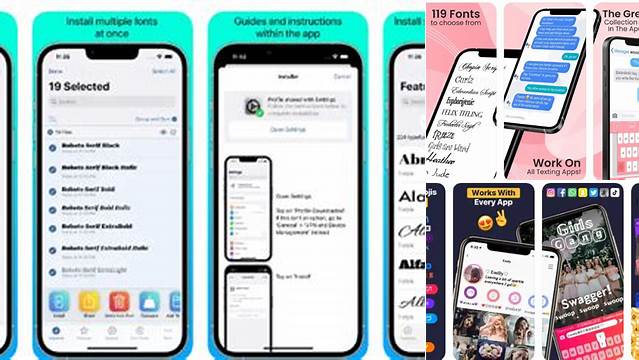
Best Font Apps For IPhone: Transform Your Text!
Hey guys! Ever feel like your iPhone's default fonts are a bit…meh? You're not alone! The good news is, there's a whole world of awesome font apps out there that can help you spice up your text game. Whether you're looking to create eye-catching social media posts, design stunning graphics, or just personalize your notes, the right font can make all the difference. So, let's dive into the best font apps for iPhone and see how you can transform your text from blah to bam!
1. Top Font Apps for iPhone in 2024
Alright, let's kick things off with a look at the top contenders in the font app world for iPhones in 2024. There are a ton of options out there, but we're going to focus on the apps that really stand out in terms of features, font selection, ease of use, and overall value. When we talk about the best font apps for iPhone, we're talking about tools that empower you to express yourself creatively and make your text truly pop. Think about it: your fonts are a part of your personal brand, and they can say a lot about you. The top font apps offer diverse styles, from elegant scripts to bold display fonts, ensuring you find the perfect match for your needs. This year, we've seen some great updates and new apps emerge, so we're super excited to share our top picks with you. We’ll consider user reviews, expert opinions, and our own hands-on testing to bring you the most comprehensive list possible. Stay tuned as we explore the world of typography on your iPhone!
2. Free Font Apps for iPhone: The Best Options
Okay, let's talk free font apps! We all love a good deal, right? The best part is, you don't have to spend a fortune to get access to some fantastic fonts on your iPhone. There are plenty of amazing free options that offer a wide variety of styles, from classic serif fonts to modern sans-serifs and playful scripts. But, of course, the word free always comes with a question, doesn’t it? Like, “what’s the catch?” The catch, if there is one, is usually that the free versions might have fewer fonts or features compared to their paid counterparts. However, many free apps still provide a solid selection to get you started. We’re talking about apps that let you use custom fonts in your social media posts, stories, and even documents. When you're looking for the best font apps for iPhone that are free, it's important to consider things like the number of fonts included, the quality of the fonts, and whether the app has any annoying limitations like watermarks or ads. Let's explore some of the top free font apps that deliver big value without costing you a dime. This way, you can express yourself and look good without breaking the bank!
3. Paid Font Apps for iPhone: Are They Worth It?
Now, let's flip the coin and talk about paid font apps for iPhone. Are they really worth the investment? Well, that depends on your needs and how seriously you take your font game. Paid font apps often offer a huge library of fonts, exclusive designs, and advanced features that you simply won't find in free apps. Think about it: if you’re a designer, a content creator, or someone who relies on visual aesthetics for your work, having access to a premium font library can be a game-changer. It can help you create unique and professional-looking designs that stand out from the crowd. When considering paid font apps, it's crucial to weigh the cost against the benefits. Some apps offer a one-time purchase, while others have subscription models. We'll dig into what you get for your money, including the number of fonts, the quality and variety of the designs, and any additional features like font pairing suggestions or integration with other apps. Let’s explore whether investing in the best font apps for iPhone that are paid is the right move for you. You need to consider it before making a splash out purchase, guys.
4. Font Apps for Instagram on iPhone
Instagram, Instagram… the land of visually stunning content! If you're an Instagram enthusiast, you know how important it is to make your posts and stories stand out. That’s where font apps for Instagram come in! Using custom fonts can add a unique flair to your captions, bios, and stories, helping you grab attention and express your personal style. The best font apps for iPhone designed for Instagram often offer a wide range of stylish and trendy fonts that you won't find in the standard Instagram font options. We're talking about fonts that are perfect for everything from quotes and announcements to product promotions and behind-the-scenes glimpses. When choosing a font app for Instagram, think about ease of use, font variety, and how well the app integrates with Instagram’s interface. Some apps allow you to type directly within the app and then copy and paste your text into Instagram, while others might offer direct integration. Let's explore the top font apps that will help you level up your Instagram game and make your content shine. Get ready to make your feed the envy of all your followers!
5. Font Apps for Stories on iPhone
Instagram Stories are huge, right? They're a fantastic way to share quick updates, engage with your audience, and show off your personality. But let’s face it, the default font options in Instagram Stories can get a little…well, boring. That's where font apps for Stories come to the rescue! These apps allow you to add eye-catching and unique fonts to your Stories, making them more engaging and visually appealing. The best font apps for iPhone for Stories offer a wide range of styles, from playful handwritten fonts to bold and modern designs. When selecting an app, consider the variety of fonts, how easy it is to use, and whether it offers other features like text animations or background options. You want an app that lets you quickly and easily create stunning Stories without a ton of fuss. Let's explore the top apps that will help you transform your Instagram Stories from meh to marvelous. It's time to make your Stories stand out and captivate your audience! So get your creative juices flowing, guys!
6. Font Apps for TikTok on iPhone
Tiktok… where creativity takes center stage! If you're a TikTok creator, you know that every detail matters, including your fonts. Using custom fonts in your TikTok videos can help you express your personality, highlight key messages, and make your content more engaging. Font apps for TikTok allow you to add unique and stylish text overlays to your videos, helping you stand out in the crowded TikTok landscape. The best font apps for iPhone for TikTok offer a range of trendy and eye-catching fonts that perfectly complement the platform’s dynamic and visual nature. You can use different fonts for captions, text overlays, and even watermarks to create a cohesive and professional look for your videos. When choosing a font app for TikTok, consider how easy it is to add text to your videos, the variety of fonts available, and whether the app offers other editing features. Let's explore the top apps that will help you level up your TikTok game and create content that grabs attention. Ready to make your mark on TikTok? Let’s do this!
7. Font Keyboard Apps for iPhone
Tired of the same old system font on your iPhone keyboard? Font keyboard apps are here to spice things up! These apps allow you to type in a variety of stylish fonts directly from your keyboard, making it super easy to add flair to your texts, emails, social media posts, and more. The best font apps for iPhone that function as keyboards integrate seamlessly with your system, so you can use them in virtually any app. We're talking about typing in elegant scripts, bold display fonts, and playful handwritten styles, all without having to copy and paste from another app. When choosing a font keyboard app, consider factors like the number of fonts included, the ease of switching between fonts, and whether the keyboard is stable and responsive. Nobody wants a laggy keyboard! We'll dive into the top apps that offer a smooth and stylish typing experience, so you can express yourself in every message. Get ready to say goodbye to boring text and hello to a world of font-tastic possibilities!
8. Font Generator Apps for iPhone
Need to create some unique and eye-catching text? Font generator apps are your new best friends! These apps allow you to generate stylized text with various effects, such as outlines, shadows, gradients, and 3D effects. The best font apps for iPhone that are font generators go beyond just offering different font styles; they provide tools to customize your text in creative ways. Think about it: you can create logos, banners, social media graphics, and more, all directly from your iPhone. When choosing a font generator app, consider the range of effects and customization options available, the ease of use, and whether the app allows you to save and share your creations. Some apps also offer templates and design tools to help you get started. We'll explore the top apps that will help you unleash your inner designer and create stunning text graphics in minutes. Let’s get generating, guys!
9. Font Editor Apps for iPhone
Want to take your font game to the next level? Font editor apps are the tools you need! These apps allow you to customize existing fonts or even create your own from scratch. If you're a true typography enthusiast or a designer who needs precise control over your fonts, a font editor app is a must-have. The best font apps for iPhone that are font editors offer a range of advanced features, such as adjusting letter spacing, kerning, and glyph shapes. You can fine-tune existing fonts to perfectly match your project's needs or let your creativity flow and design entirely new typefaces. When choosing a font editor app, consider the level of control it offers, the learning curve, and whether it supports importing and exporting fonts in various formats. We'll dive into the top apps that will help you become a font master. Get ready to delve into the intricacies of typography and unleash your font design potential!
10. Apps with the Widest Font Selection for iPhone
Variety is the spice of life, and that's especially true when it comes to fonts! If you're looking for an app with a massive font library, you're in the right place. Apps with the widest font selection for iPhone offer thousands of fonts, from classic styles to trendy designs, ensuring you'll always find the perfect font for any project. The best font apps for iPhone in this category are like a font buffet, offering everything from elegant scripts and bold display fonts to playful handwritten styles and vintage designs. We're talking about libraries that are constantly updated with new fonts, so you'll always have fresh options to choose from. When considering apps with a wide font selection, think about the organization and search features, the quality of the fonts, and whether the app offers previews or samples. Let's explore the top apps that will give you access to a vast world of typography. Get ready to dive into a font wonderland!
11. Apps with the Easiest Font Installation on iPhone
Installing fonts on your iPhone shouldn't be a headache, right? That's why apps with the easiest font installation are a godsend! These apps streamline the process of adding custom fonts to your device, making it quick and painless. The best font apps for iPhone that prioritize easy installation often offer a simple, step-by-step guide and integrate seamlessly with iOS. No more struggling with complicated procedures or confusing settings! We're talking about apps that let you preview fonts before installing them, manage your installed fonts easily, and even uninstall fonts if you need to. When choosing an app for easy font installation, consider the user interface, the clarity of the instructions, and whether the app supports various font formats. Let's explore the top apps that will make font installation a breeze. Get ready to say goodbye to font installation frustration!
12. Apps for Custom Fonts on iPhone
Want to use your own unique handwriting or a custom font you designed? Apps for custom fonts on iPhone make it possible! These apps allow you to import your own fonts or create new ones using your handwriting or other designs. The best font apps for iPhone in this category offer tools to create professional-looking fonts, with features like glyph editing, kerning adjustments, and font exporting. Think about it: you could create a font based on your signature, a font inspired by your favorite artist, or a font that perfectly matches your brand's aesthetic. When choosing an app for custom fonts, consider the level of control it offers, the ease of use, and whether it supports different font formats. We'll explore the top apps that will help you bring your font ideas to life. Get ready to unleash your creativity and design your very own fonts!
13. Font Pairing Apps for iPhone
Choosing the right font pairings can be tricky, but font pairing apps are here to help! These apps suggest fonts that work well together, making it easy to create visually harmonious designs. The best font apps for iPhone that focus on font pairing often use typography principles and algorithms to generate suggestions, so you can be confident that your font combinations will look great. Think about it: a well-paired font combination can elevate your design, make your text more readable, and create a cohesive visual identity. When choosing a font pairing app, consider the accuracy of the suggestions, the variety of font styles included, and whether the app offers explanations for why certain fonts pair well together. We'll explore the top apps that will help you master the art of font pairing. Get ready to create stunning typography combinations!
14. Font Management Apps for iPhone
If you're a font enthusiast, you might find yourself with a huge collection of fonts on your iPhone. That's where font management apps come in! These apps help you organize, preview, and manage your fonts, making it easy to find the perfect font for any project. The best font apps for iPhone in this category offer features like font categorization, tagging, and search, so you can quickly locate the fonts you need. Think about it: a well-organized font library can save you time and frustration, especially when you're working on tight deadlines. When choosing a font management app, consider the organization features, the preview options, and whether the app integrates with other design tools. We'll explore the top apps that will help you keep your font library in tip-top shape. Get ready to take control of your fonts!
15. Font Preview Apps for iPhone
Want to see how a font will look before you use it? Font preview apps are the answer! These apps allow you to preview fonts on your iPhone, so you can make sure they're the perfect fit for your project. The best font apps for iPhone that offer font previews often let you type in custom text and see how it looks in different fonts, sizes, and styles. Think about it: previewing fonts can save you time and prevent design disasters, ensuring that your text always looks its best. When choosing a font preview app, consider the clarity of the previews, the customization options, and whether the app supports different font formats. We'll explore the top apps that will help you visualize your typography. Get ready to preview your way to perfect fonts!
16. Apps for Designing Text Logos on iPhone
Need a logo but don't want to hire a designer? Apps for designing text logos on iPhone can help! These apps offer tools and templates to create professional-looking logos using text and typography. The best font apps for iPhone in this category often include a library of fonts, design elements, and customization options, so you can create a logo that perfectly represents your brand. Think about it: a well-designed logo can make a huge difference in your brand's identity and recognition. When choosing an app for designing text logos, consider the design options, the ease of use, and whether the app allows you to export your logo in high resolution. We'll explore the top apps that will help you create a logo you'll be proud of. Get ready to design a logo that wows!
17. Apps for Adding Text to Photos on iPhone
Adding text to photos is a great way to create engaging social media posts, memes, and more. Apps for adding text to photos on iPhone make it easy to overlay text on your images, with a variety of fonts and customization options. The best font apps for iPhone in this category often offer features like text resizing, rotating, and color adjustment, so you can create the perfect text overlay. Think about it: a well-placed text overlay can add context, humor, or emotion to your photos, making them more impactful. When choosing an app for adding text to photos, consider the font selection, the customization options, and whether the app offers other editing features like filters and effects. We'll explore the top apps that will help you turn your photos into visual masterpieces. Get ready to add some text-tastic flair to your images!
18. Apps for Creating Text Watermarks on iPhone
Protect your images and add a personal touch with apps for creating text watermarks on iPhone. These apps allow you to add a text watermark to your photos, helping you prevent unauthorized use and promote your brand. The best font apps for iPhone in this category often offer customizable watermark templates, font options, and transparency settings, so you can create a watermark that's both effective and visually appealing. Think about it: a well-designed watermark can protect your work and increase brand awareness. When choosing an app for creating text watermarks, consider the customization options, the ease of use, and whether the app supports batch processing. We'll explore the top apps that will help you safeguard your images. Get ready to watermark like a pro!
19. Apps for Animated Text on iPhone
Want to make your text move? Apps for animated text on iPhone can help you create eye-catching text animations for your videos, social media posts, and more. The best font apps for iPhone in this category offer a range of animation styles, font options, and customization settings, so you can create text animations that truly stand out. Think about it: animated text can grab attention, highlight key messages, and add a dynamic touch to your content. When choosing an app for animated text, consider the animation styles, the font selection, and whether the app offers other editing features. We'll explore the top apps that will help you bring your text to life. Get ready to animate your words!
20. Apps for Calligraphy Fonts on iPhone
Add a touch of elegance and sophistication to your text with apps for calligraphy fonts on iPhone. These apps offer a variety of beautiful calligraphy fonts that are perfect for invitations, cards, and other special occasions. The best font apps for iPhone in this category often include different calligraphy styles, from classic scripts to modern lettering, so you can find the perfect font for your project. Think about it: a well-chosen calligraphy font can add a touch of artistry to your text. When choosing an app for calligraphy fonts, consider the font selection, the quality of the fonts, and whether the app offers customization options. We'll explore the top apps that will help you master the art of calligraphy. Get ready to write in style!
21. Apps for Handwriting Fonts on iPhone
Want to give your text a personal touch? Apps for handwriting fonts on iPhone can help! These apps offer a variety of fonts that mimic handwriting, adding a casual and authentic feel to your messages, notes, and designs. The best font apps for iPhone in this category often include different handwriting styles, from neat cursive to messy scrawls, so you can find the perfect font to match your personality. Think about it: a handwriting font can make your text feel more personal and relatable. When choosing an app for handwriting fonts, consider the font selection, the authenticity of the fonts, and whether the app offers customization options. We'll explore the top apps that will help you add a human touch to your text. Get ready to write like you mean it!
22. Apps for Vintage Fonts on iPhone
Looking for a retro vibe? Apps for vintage fonts on iPhone can transport your text back in time! These apps offer a variety of fonts inspired by vintage typography, from classic serifs to Art Deco styles. The best font apps for iPhone in this category often include fonts that evoke different eras, so you can find the perfect font for your vintage-themed projects. Think about it: a well-chosen vintage font can add a touch of nostalgia and character to your designs. When choosing an app for vintage fonts, consider the font selection, the authenticity of the fonts, and whether the app offers customization options. We'll explore the top apps that will help you bring a vintage flair to your text. Get ready to rewind your typography!
23. Apps for Modern Fonts on iPhone
Keep your text looking fresh and stylish with apps for modern fonts on iPhone. These apps offer a variety of contemporary font styles, from clean sans-serifs to bold display fonts, that are perfect for today's designs. The best font apps for iPhone in this category often include fonts that are optimized for digital use, so your text will look crisp and clear on any screen. Think about it: a well-chosen modern font can give your text a sleek and professional look. When choosing an app for modern fonts, consider the font selection, the readability of the fonts, and whether the app offers customization options. We'll explore the top apps that will help you stay on-trend with your typography. Get ready to modernize your text!
24. Apps for Bold Fonts on iPhone
Need to make a statement? Apps for bold fonts on iPhone are your go-to! These apps offer a variety of fonts with thick strokes and strong presence, perfect for headlines, titles, and other text that needs to stand out. The best font apps for iPhone in this category often include different bold styles, from condensed to expanded, so you can find the perfect font for your message. Think about it: a well-chosen bold font can grab attention and convey confidence. When choosing an app for bold fonts, consider the font selection, the readability of the fonts, and whether the app offers customization options. We'll explore the top apps that will help you make a bold statement with your text. Get ready to shout it out with style!
25. Apps for Script Fonts on iPhone
Add a touch of elegance and personality to your text with apps for script fonts on iPhone. These apps offer a variety of flowing, handwritten-style fonts that are perfect for invitations, cards, and other special projects. The best font apps for iPhone in this category often include different script styles, from formal calligraphy to casual brush lettering, so you can find the perfect font for your needs. Think about it: a well-chosen script font can add a personal and sophisticated touch to your designs. When choosing an app for script fonts, consider the font selection, the legibility of the fonts, and whether the app offers customization options. We'll explore the top apps that will help you master the art of script typography. Get ready to write with flair!
26. Apps for Display Fonts on iPhone
Make your text a work of art with apps for display fonts on iPhone. These apps offer a variety of unique and decorative fonts that are perfect for headlines, logos, and other design elements that need to make a statement. The best font apps for iPhone in this category often include fonts with bold shapes, intricate details, and eye-catching designs. Think about it: a well-chosen display font can set the tone and style of your entire project. When choosing an app for display fonts, consider the font selection, the uniqueness of the fonts, and whether the app offers customization options. We'll explore the top apps that will help you create visually stunning text. Get ready to showcase your creativity!
27. Apps for Sans-Serif Fonts on iPhone
Keep your text clean and modern with apps for sans-serif fonts on iPhone. These apps offer a variety of fonts without serifs (the little strokes at the ends of letters), which are known for their readability and versatility. The best font apps for iPhone in this category often include different sans-serif styles, from light and airy to bold and impactful, so you can find the perfect font for any project. Think about it: a well-chosen sans-serif font can give your text a professional and contemporary look. When choosing an app for sans-serif fonts, consider the font selection, the readability of the fonts, and whether the app offers customization options. We'll explore the top apps that will help you achieve a sleek and modern aesthetic. Get ready to streamline your typography!
28. Apps for Serif Fonts on iPhone
Add a touch of tradition and elegance to your text with apps for serif fonts on iPhone. These apps offer a variety of fonts with serifs (the little strokes at the ends of letters), which are often associated with classic typography and readability. The best font apps for iPhone in this category often include different serif styles, from traditional Times New Roman to more decorative options, so you can find the perfect font for your project. Think about it: a well-chosen serif font can give your text a sophisticated and timeless look. When choosing an app for serif fonts, consider the font selection, the readability of the fonts, and whether the app offers customization options. We'll explore the top apps that will help you embrace the classic appeal of serifs. Get ready to elevate your typography!
29. Apps for Rounded Fonts on iPhone
Give your text a friendly and approachable feel with apps for rounded fonts on iPhone. These apps offer a variety of fonts with rounded edges and soft shapes, which can convey a sense of warmth and playfulness. The best font apps for iPhone in this category often include different rounded styles, from subtle curves to more pronounced shapes, so you can find the perfect font for your message. Think about it: a well-chosen rounded font can make your text more inviting and engaging. When choosing an app for rounded fonts, consider the font selection, the readability of the fonts, and whether the app offers customization options. We'll explore the top apps that will help you add a touch of softness to your text. Get ready to round out your typography!
30. Future Trends in Font Apps for iPhone
What's next for font apps for iPhone? The future looks bright, with exciting developments on the horizon! We can expect to see more AI-powered features, such as automatic font pairing suggestions and personalized font recommendations. The best font apps for iPhone will likely integrate even more seamlessly with other design tools and platforms, making it easier to create stunning typography across all your projects. Think about it: the possibilities are endless! We might see more apps that allow for collaborative font design, where multiple users can work on a font together in real-time. We'll also likely see more apps that support variable fonts, which offer a wide range of stylistic variations within a single font file. Let's explore the future trends in font apps and get a glimpse of what's to come. Get ready for a typography revolution!